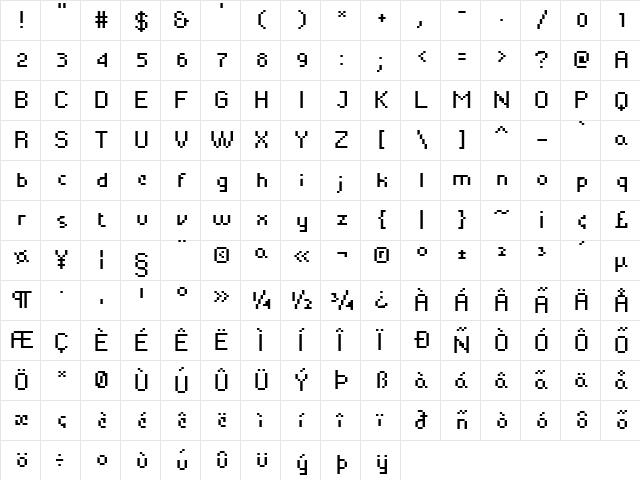
Yapix Regular
| Foundry | Fabiane Lima |
| Designer | Fabiane Lima |
Design Context for Yapix Typeface
Yapix takes a measured approach to typography — its balanced proportions and neutral character make it a reliable workhorse for both digital and print work.